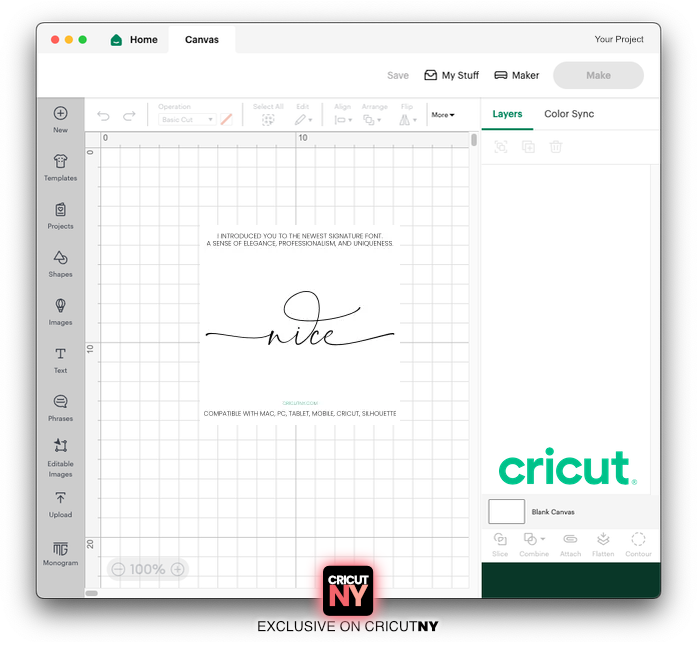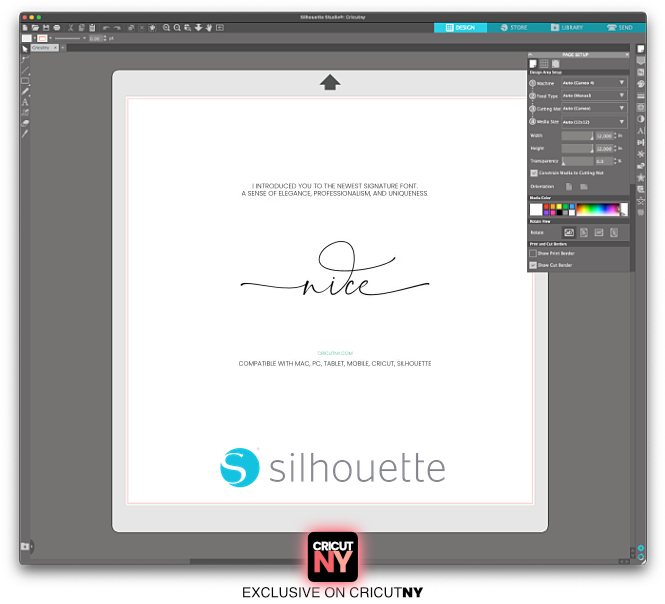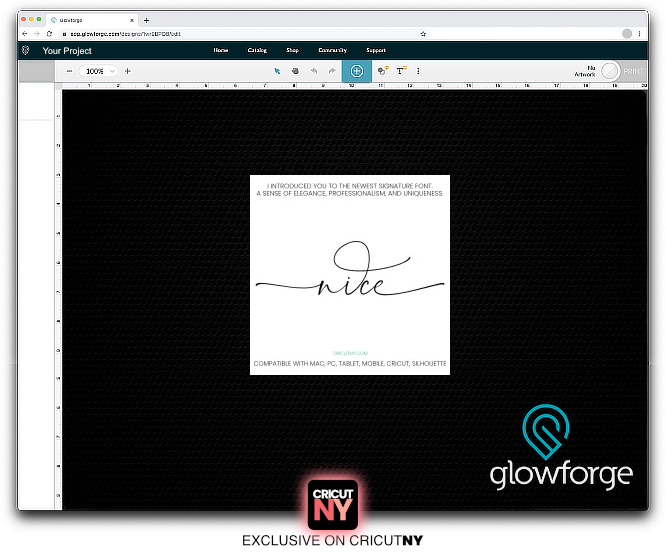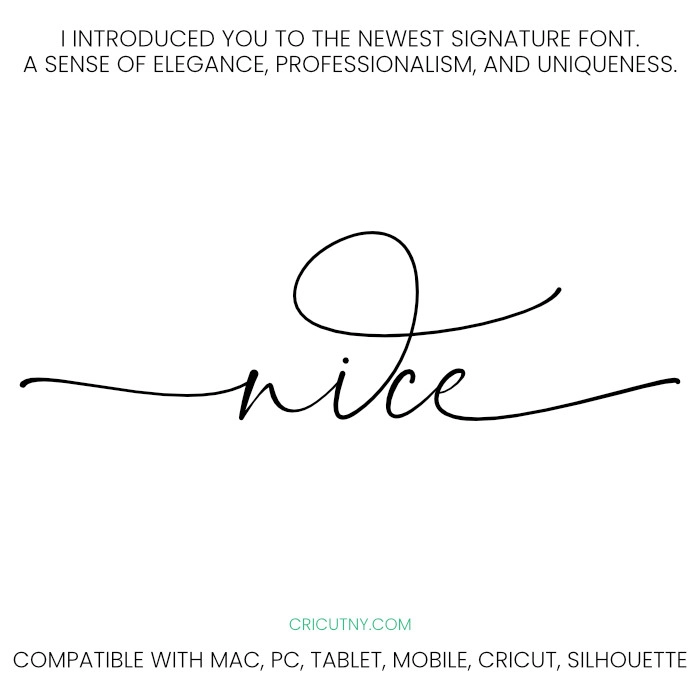
Signature font with swash tail, Tyler
I introduce you Tyler, a font with swash letters.
This signature font includes multiple long tail letter style. As an Extra, It include special fonts with swash characters (See the Part One and Part Two in the image gallery)
It’s been created with a sense of elegance, professionalism, and uniqueness.
This font is perfect for creating signature logos
and watermarks for a photography studio, logo,
initials or branding logo signature.
Tyler is a font with french accents. See the demo in the image gallery.
Special characters such as the French accents is included in the font. After you install the font, the french accents will be available | é, à, è, ù, â, ê, î, ô, û, ç, Etc …